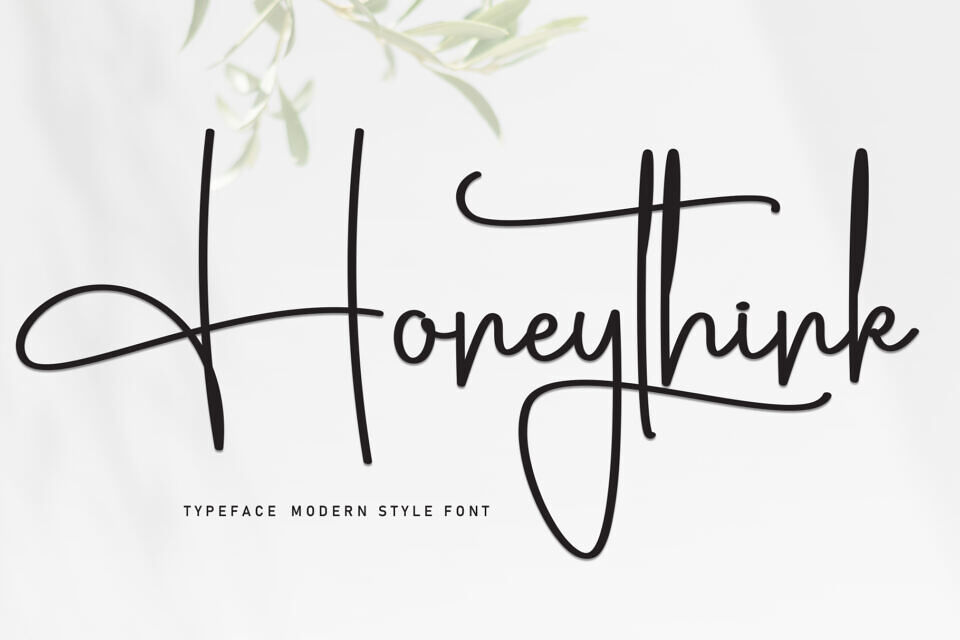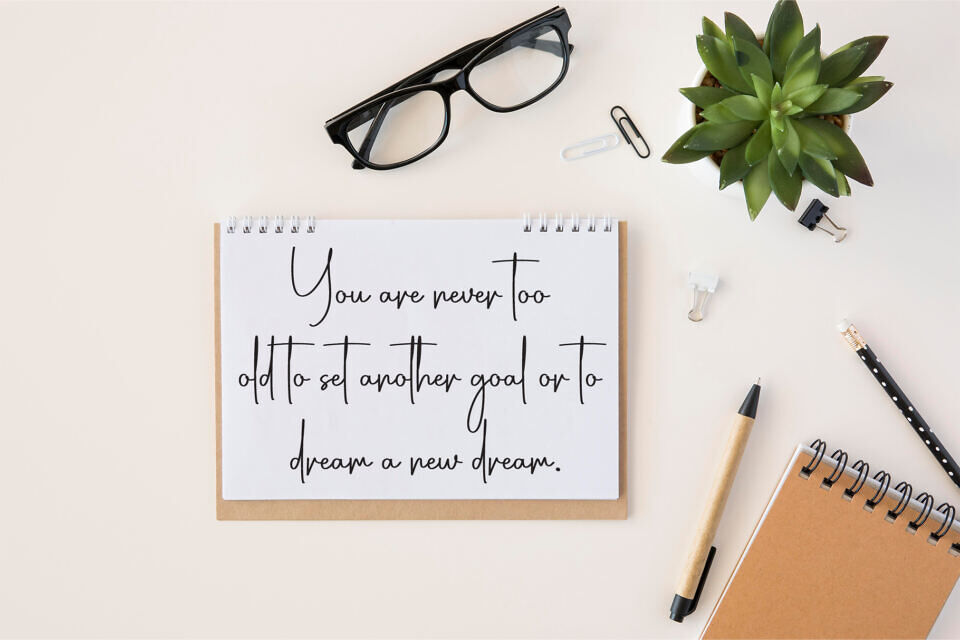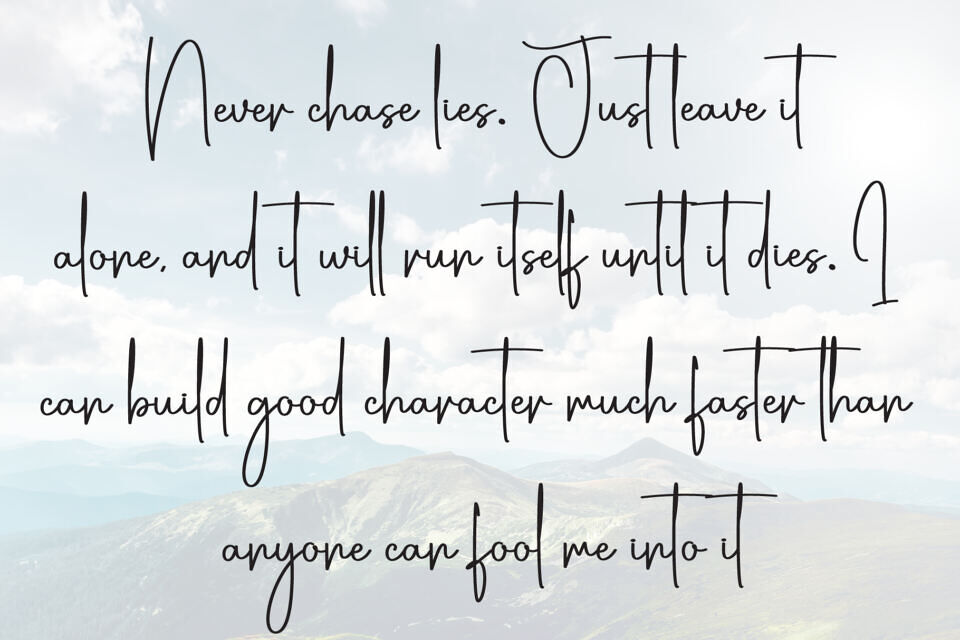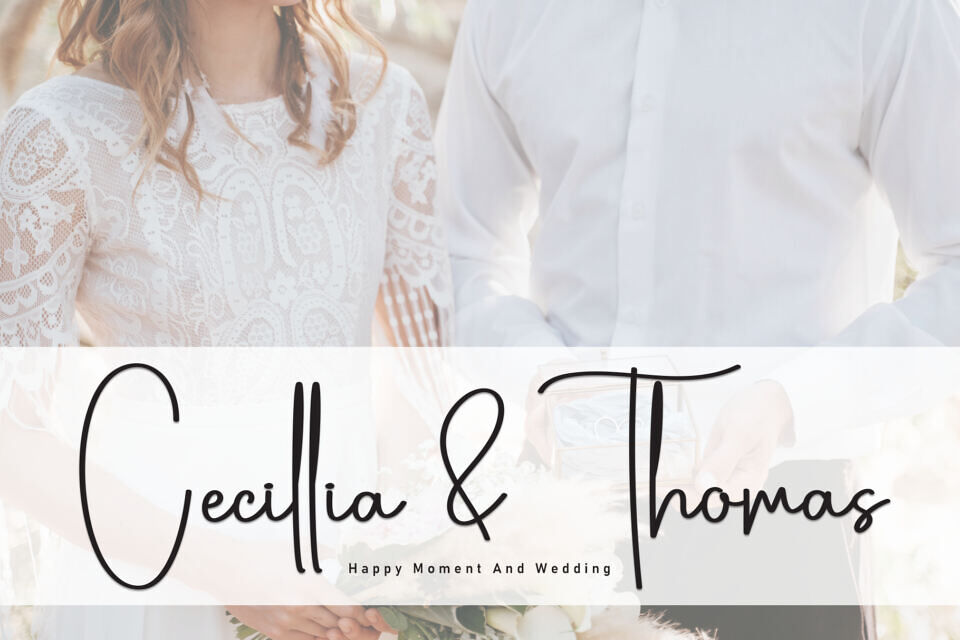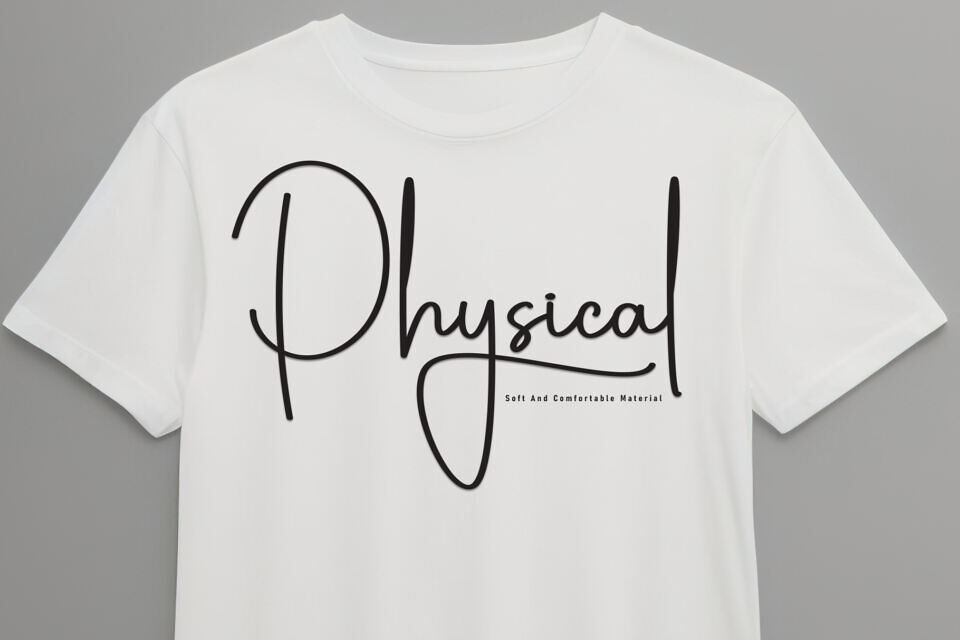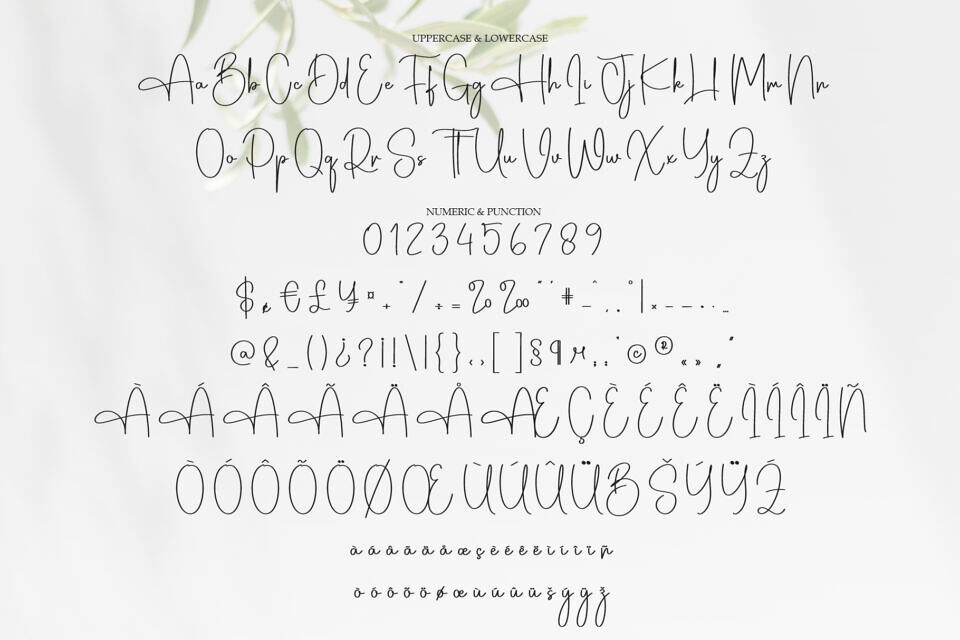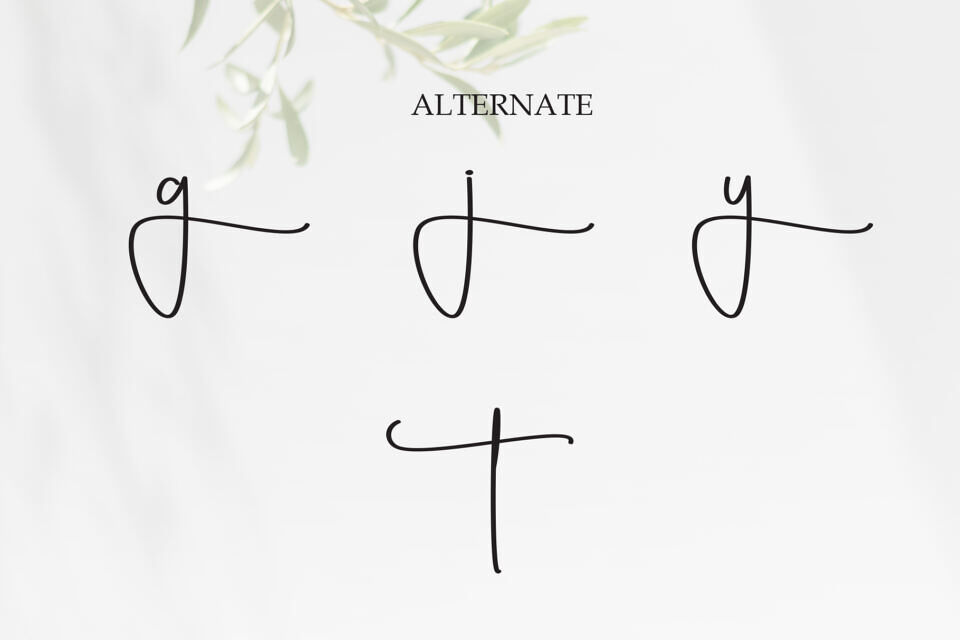
Honeythink is an elegant and modern script font that combines sophistication with a natural flow. Its cursive style features smooth, fluid lines that make it perfect for designs needing a personal, yet polished touch.
Ideal for branding, invitations, and creative projects, the font conveys a sense of warmth and friendliness, with its soft curves enhancing its readability. Honeythink is a versatile typeface that works well in both print and digital media, making it a great choice for adding a chic, handwritten flair to any design.